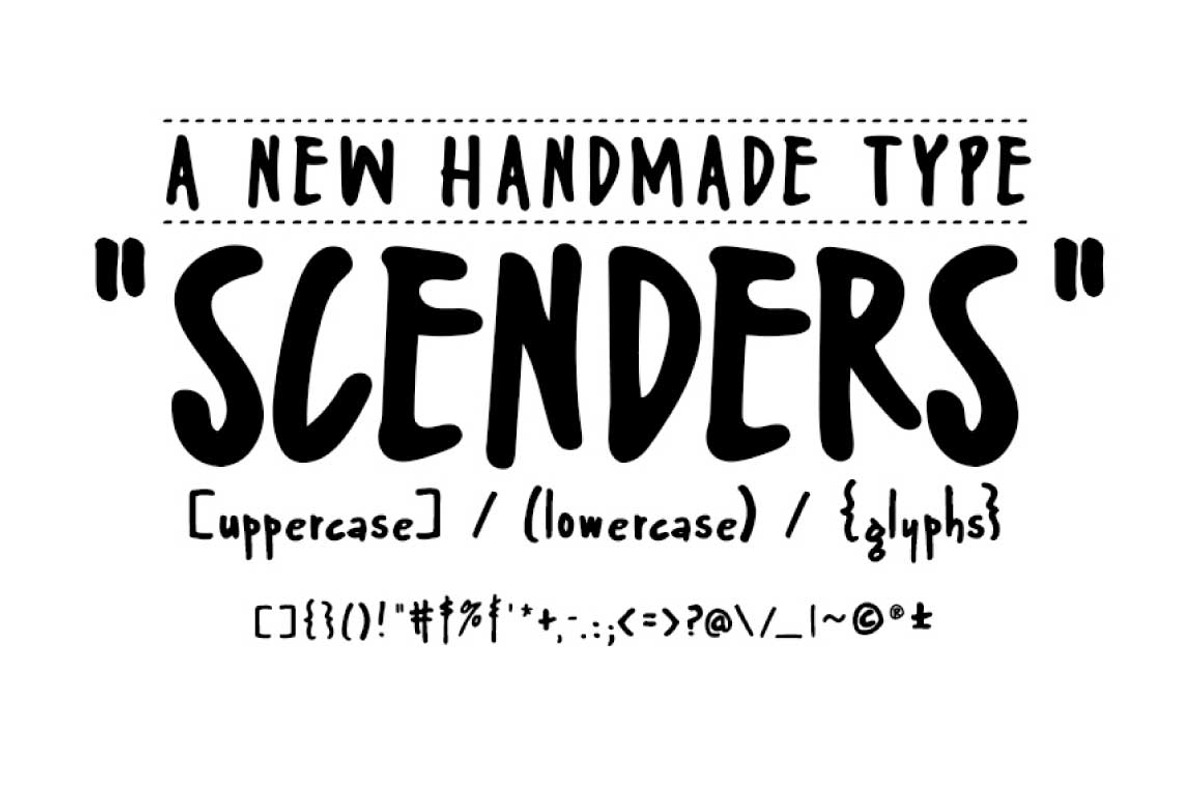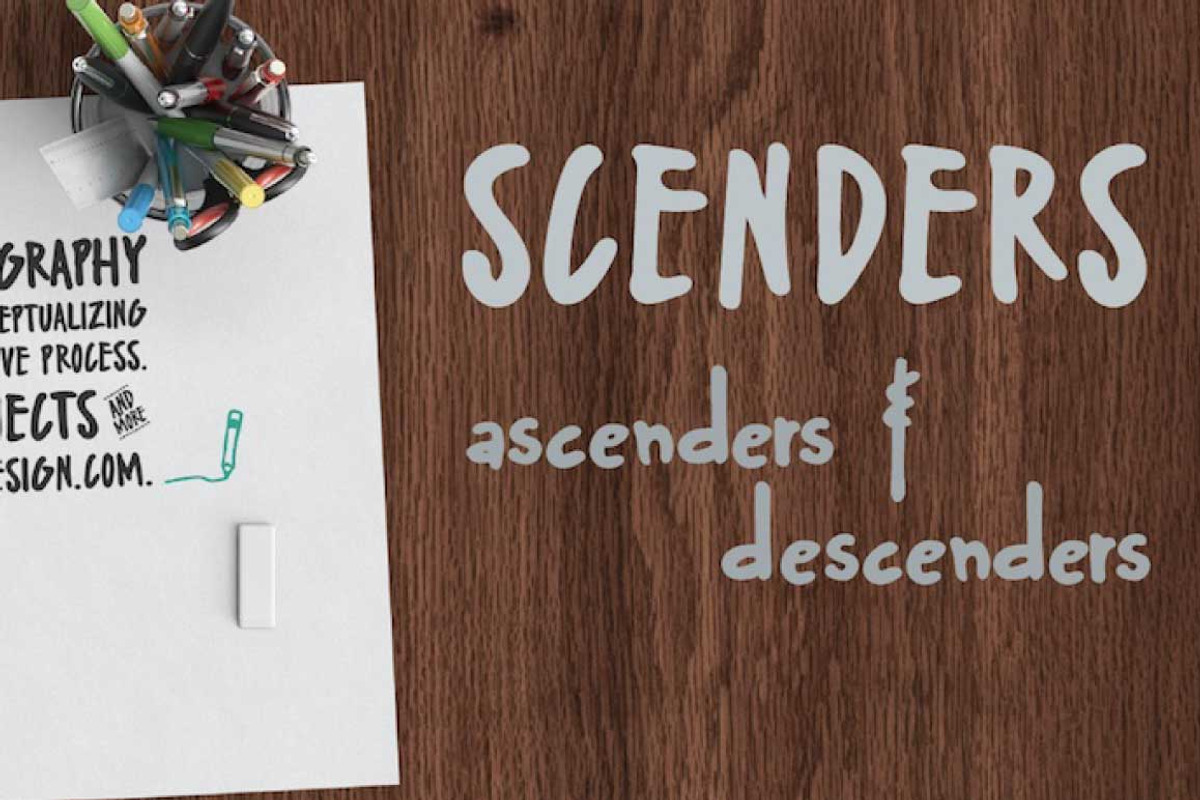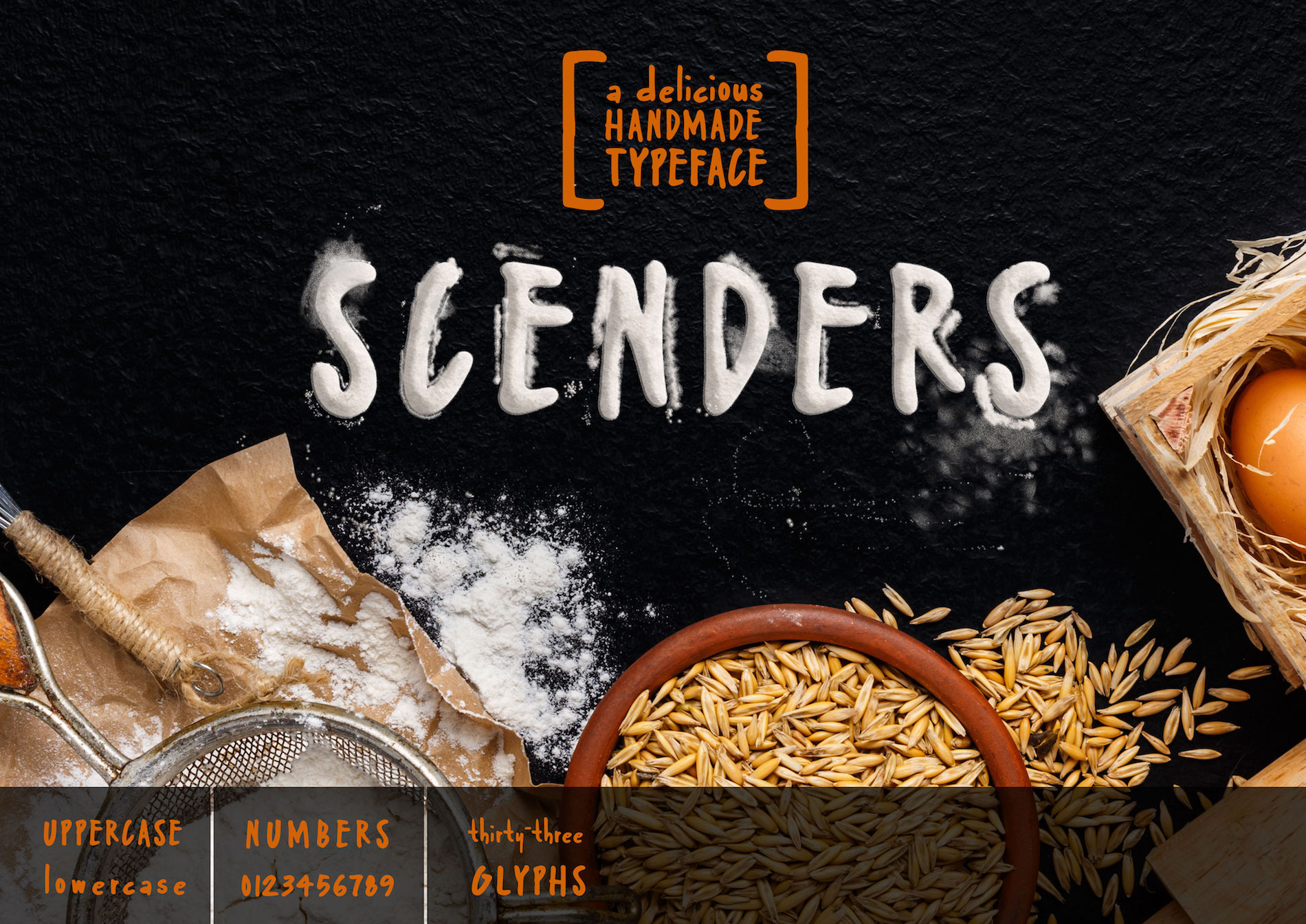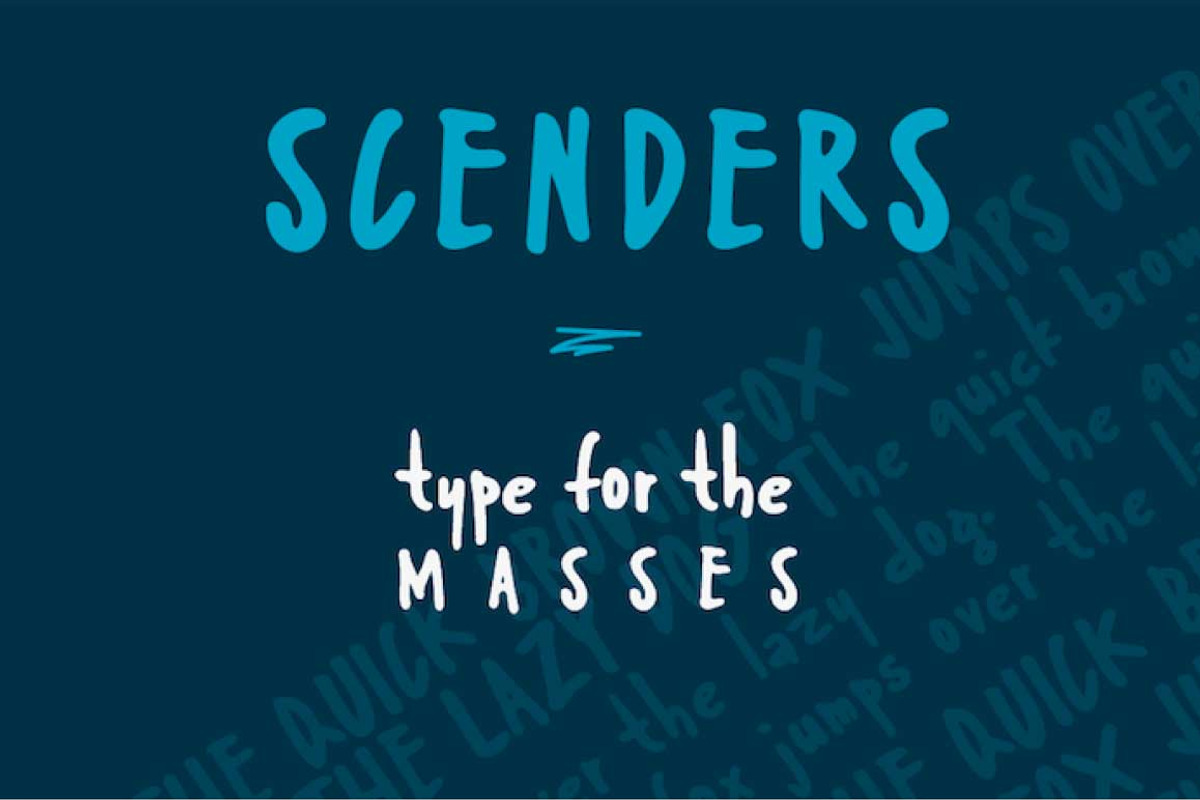
Handwritten Font
ABOUT SCENDERS Scenders is based on my handwriting and has the organic feeling of a quick note or inspirational quote.
Scenders was named for the descenders and ascenders prevalent in the lowercase. However, this type in all uppercase is quite compelling as well.
Includes lowercase, uppercase, punctuation, numbers